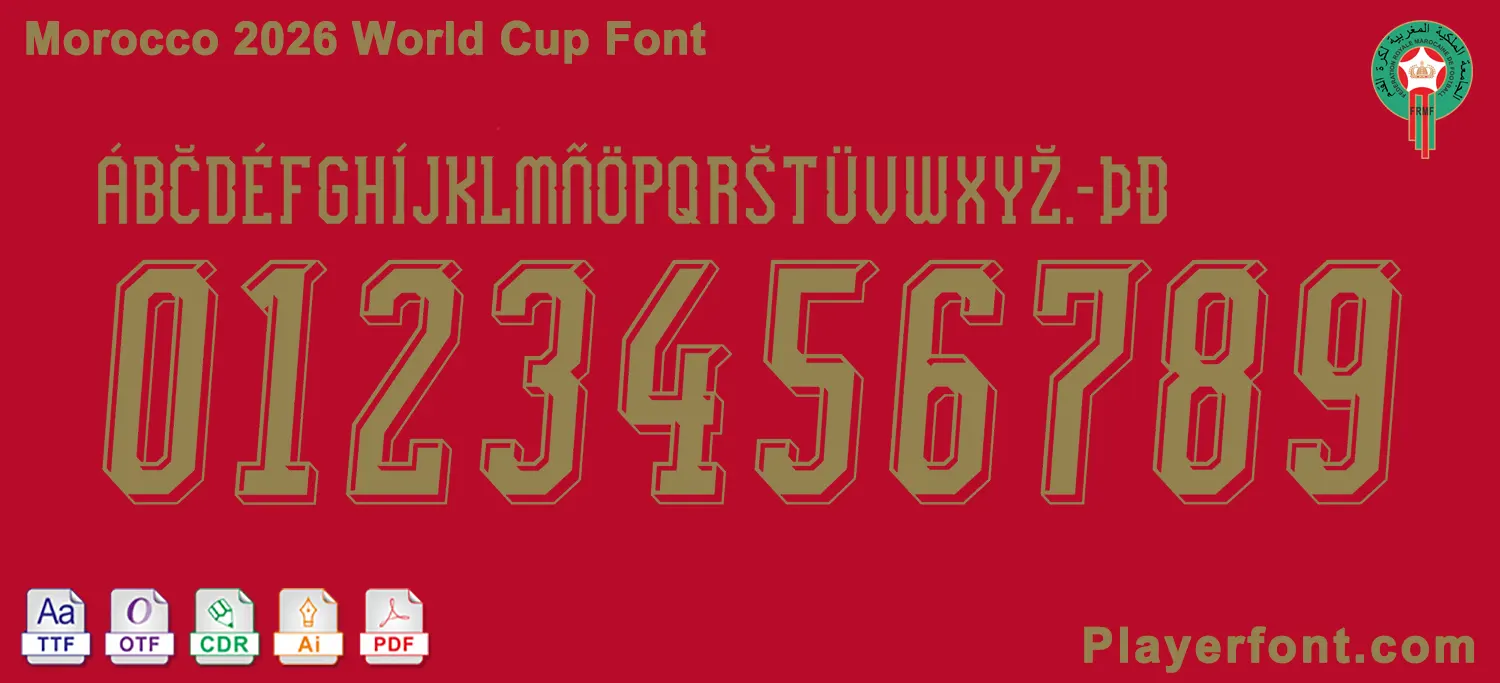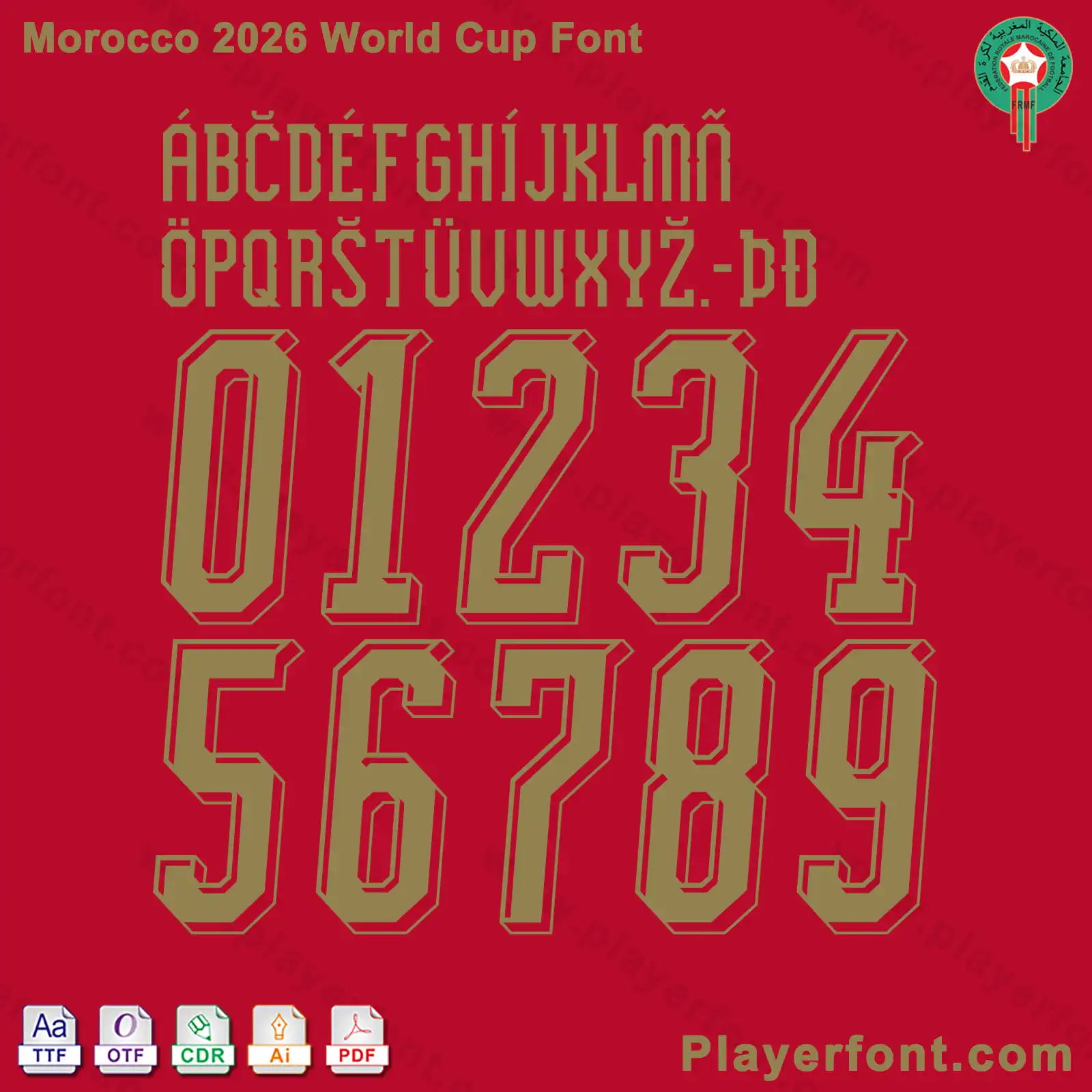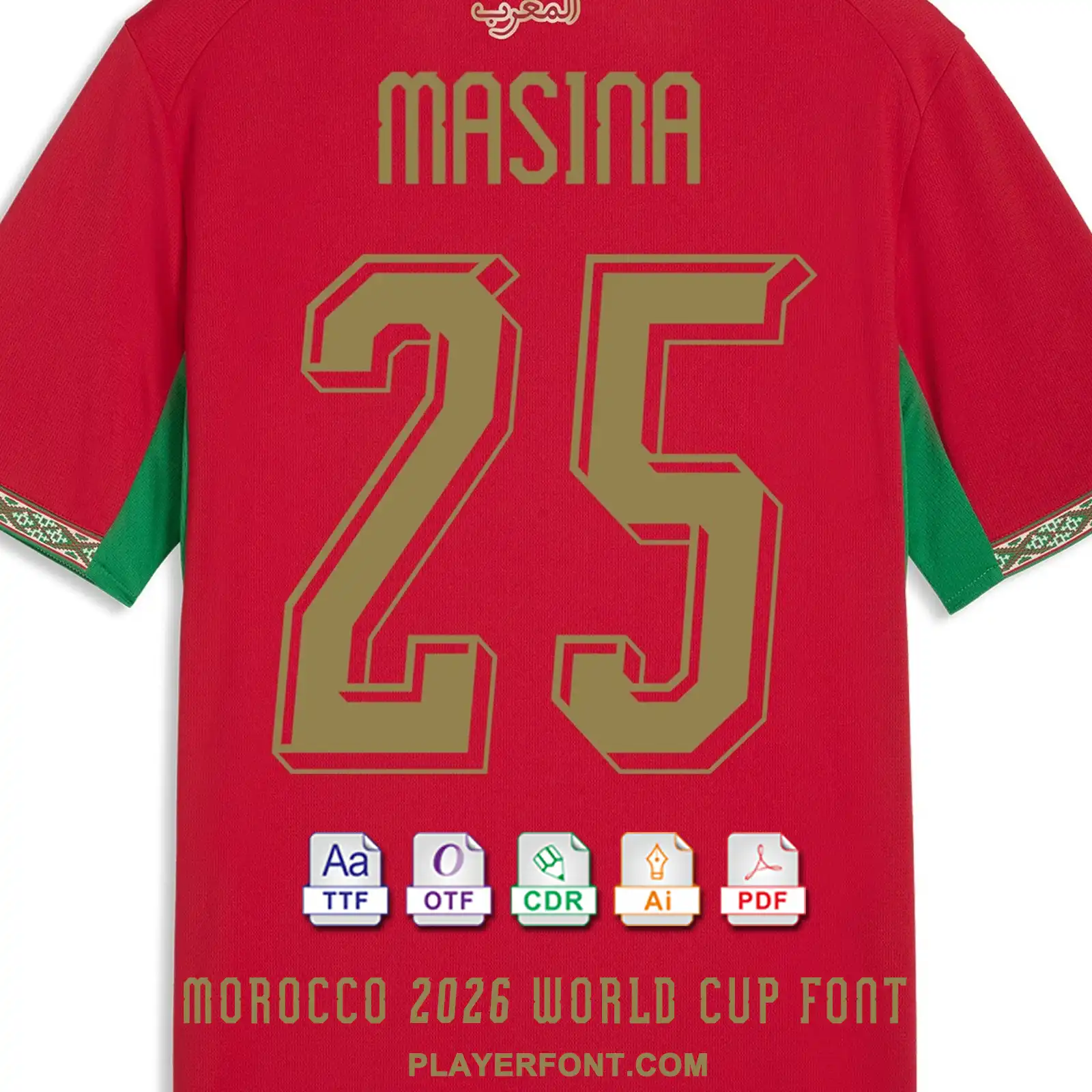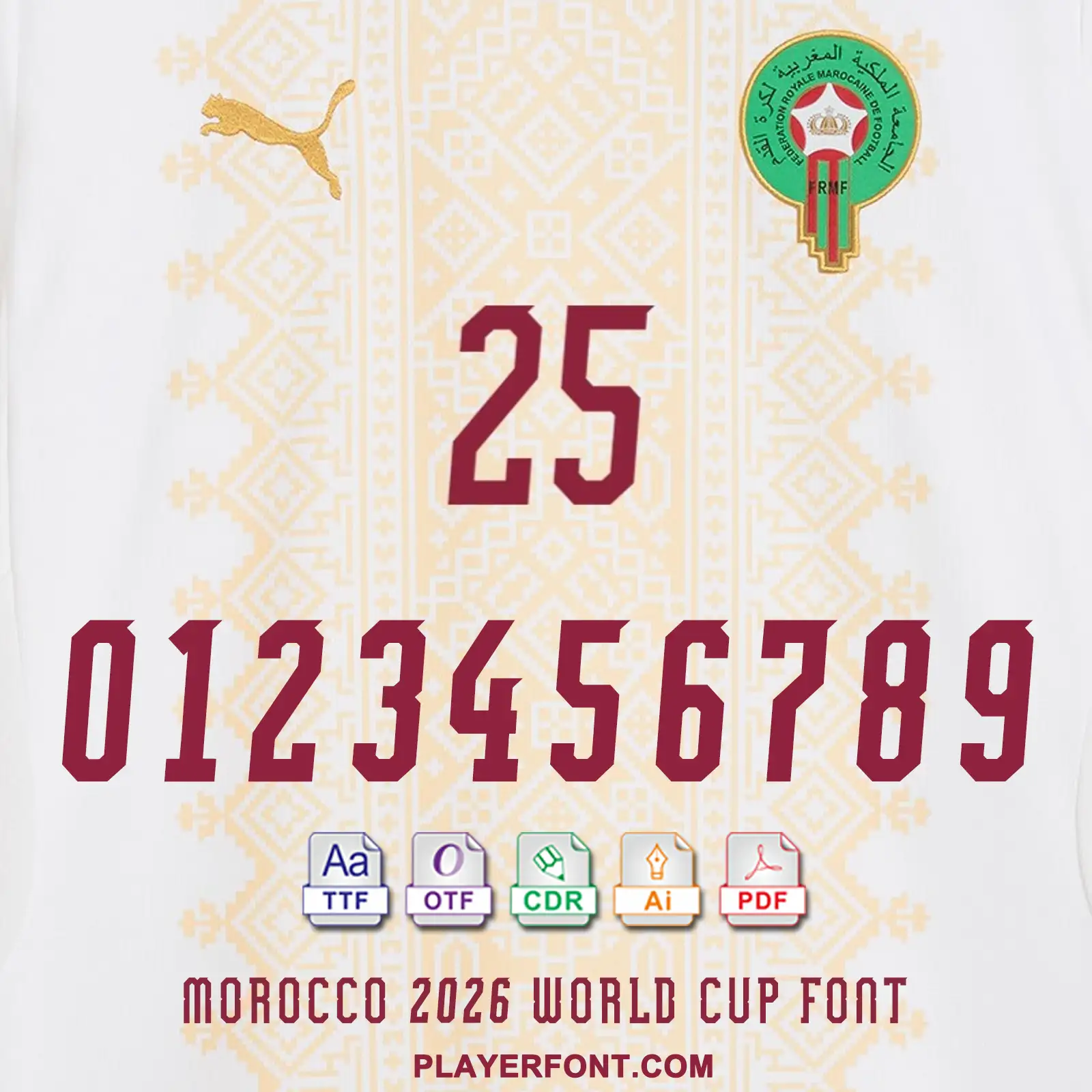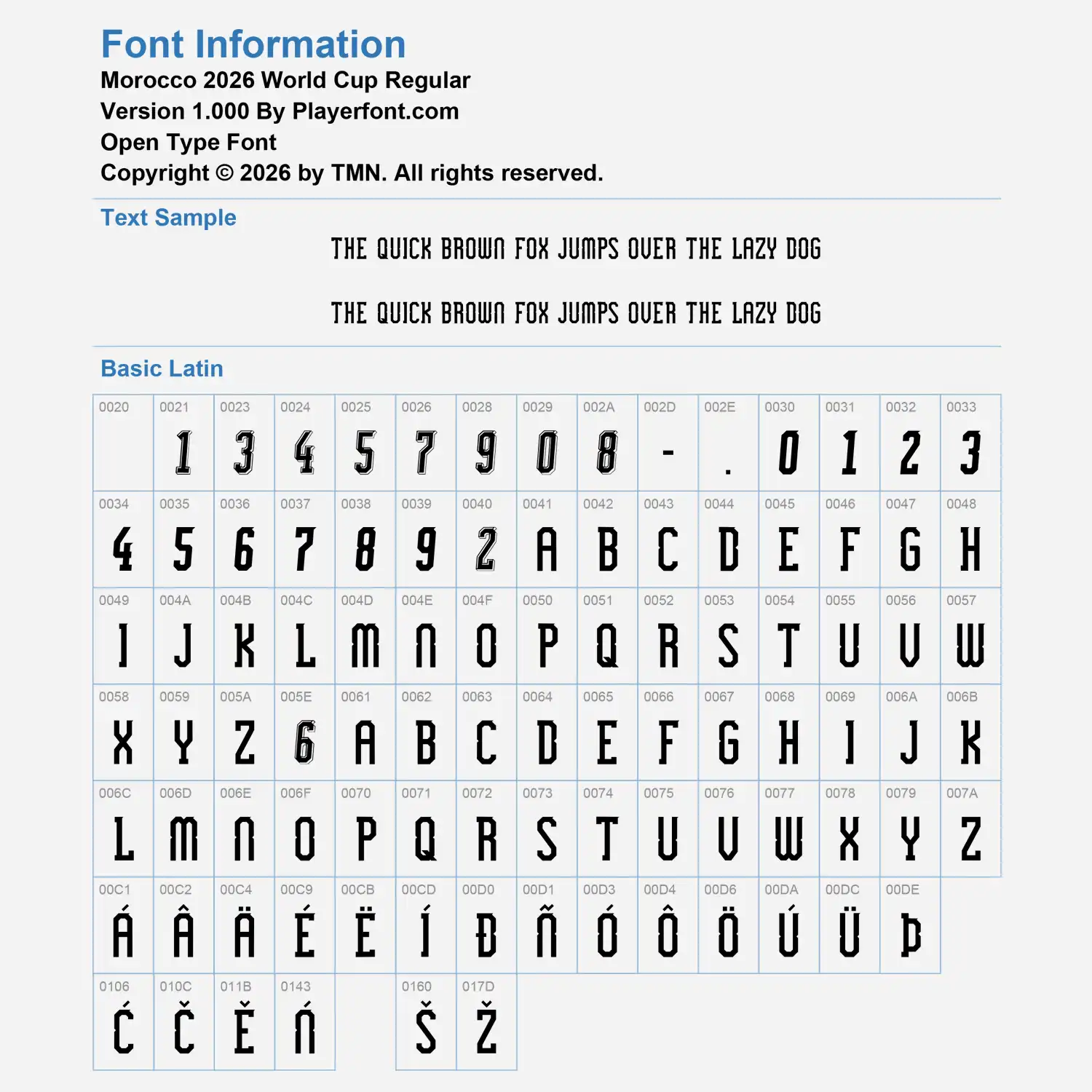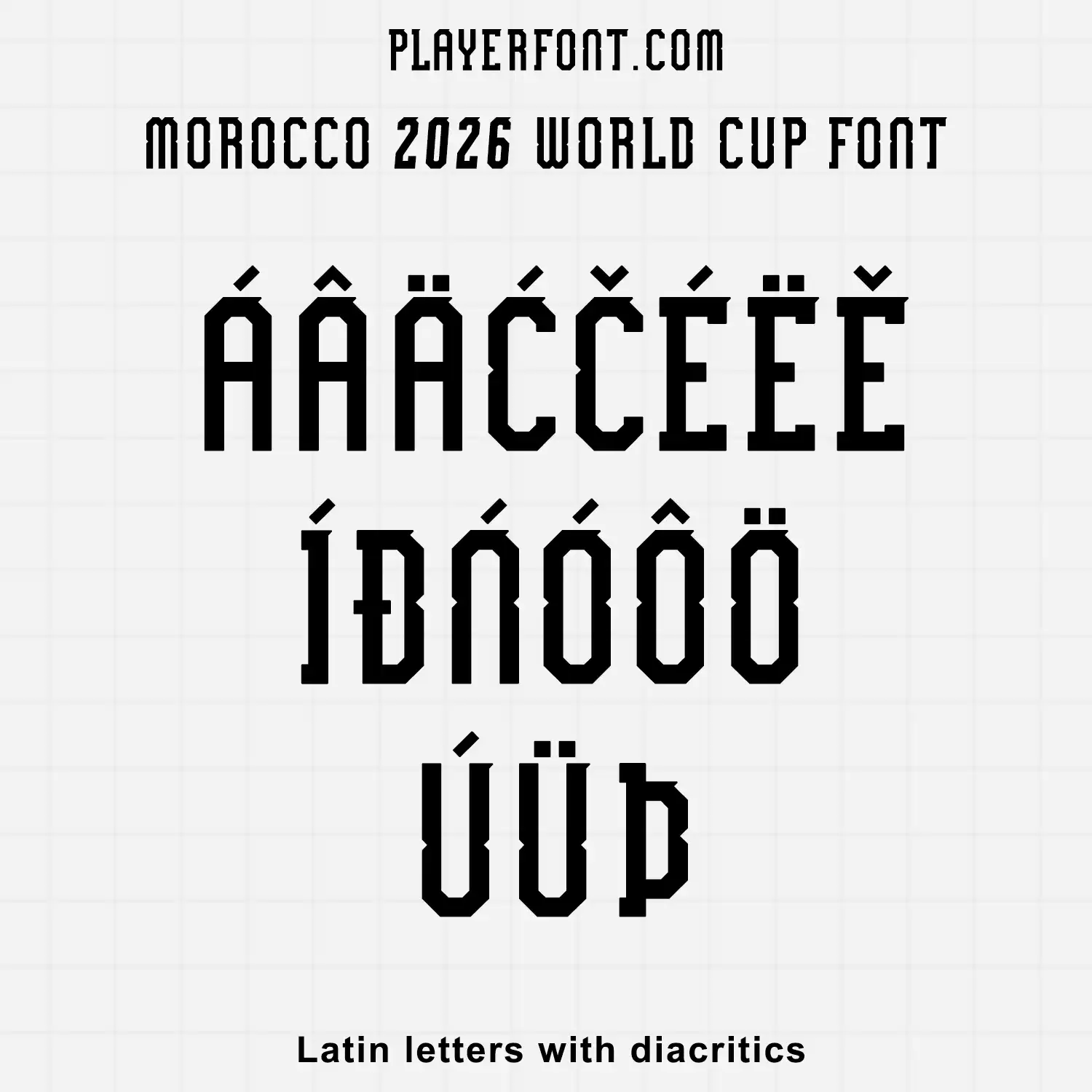
Get ready for the tournament with the official Morocco 2026 World Cup font. Designed for sports kit creators, designers, and apparel decorators, this digital font package is an exact digital replica of the typography worn by the Moroccan national team during the 2026 World Cup.
The typeface features sharp, modern geometric contours integrated with the Royal Moroccan Football Federation (FRMF) design language. It is perfect for heat press jersey applications, custom t-shirt graphics, and vector editing software.
Key Features
Complete Character Set: Includes standard Latin characters, extended diacritics, and numbers 0–9.
Integrated Logo: Includes special character bindings to easily insert the Moroccan team crest.